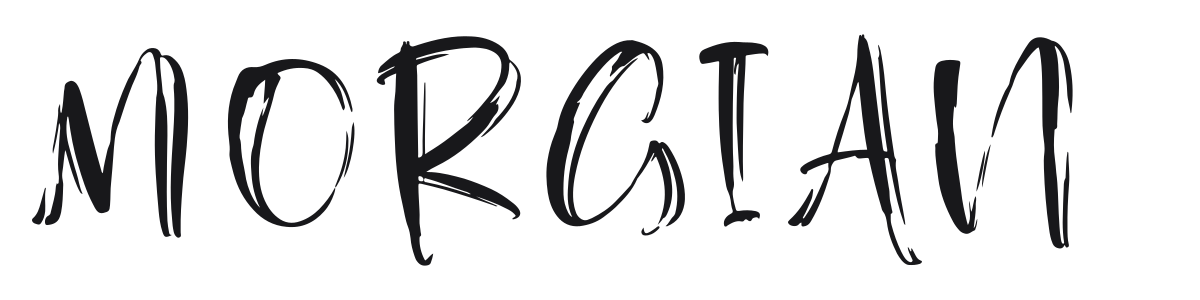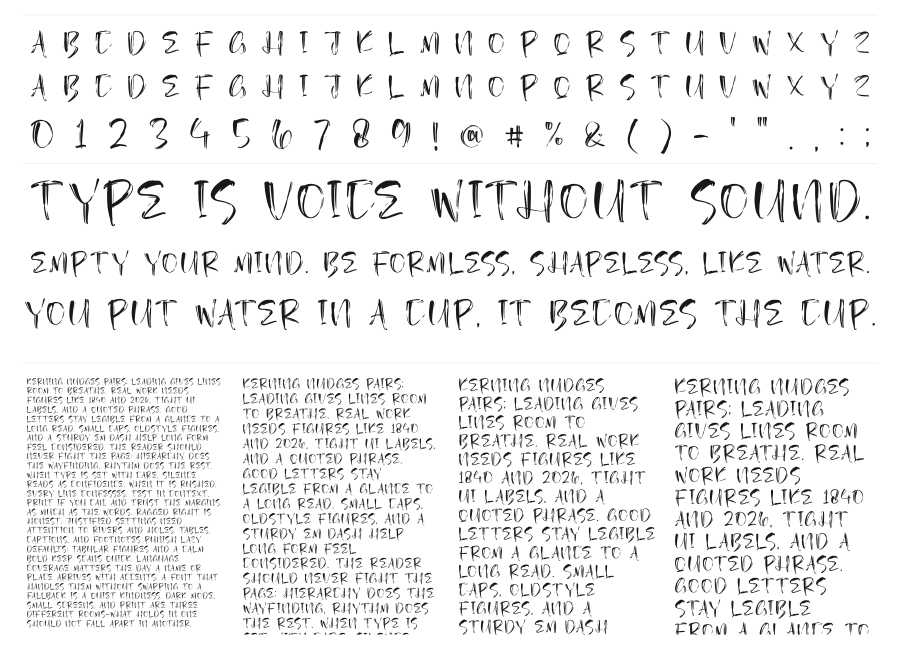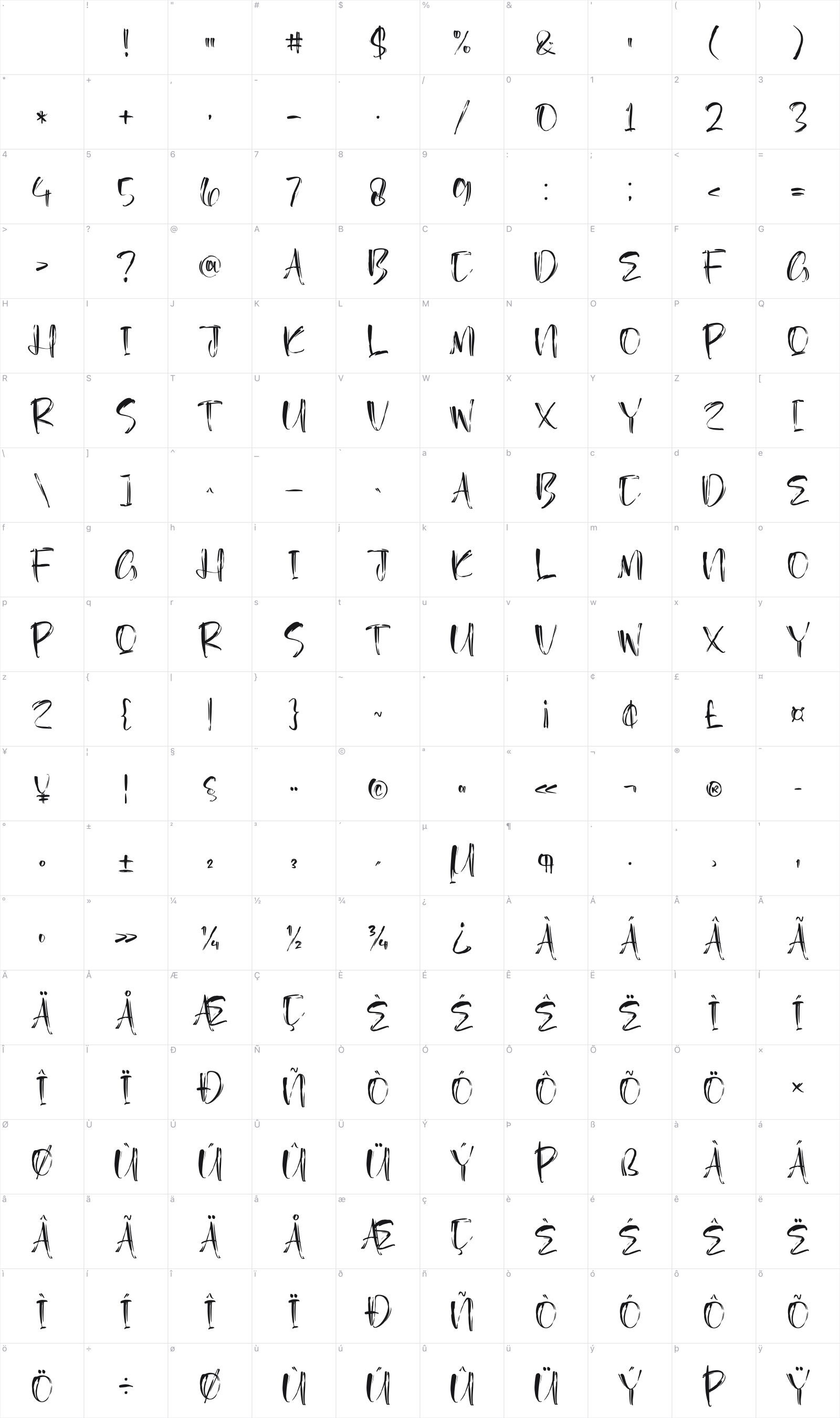
Morgian
Morgian is a raw, textured brush script with frayed bristle strokes and strong contrast between heavy stems and wispy hairlines. The aggressive, hand-inked feel makes it read as authentically hand-drawn rather than digitally polished. It thrives at large sizes where the texture and energy are fully visible.